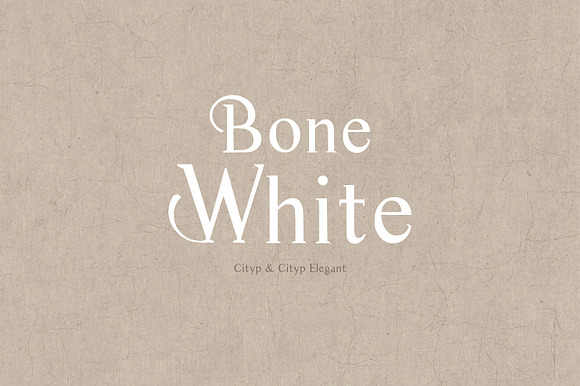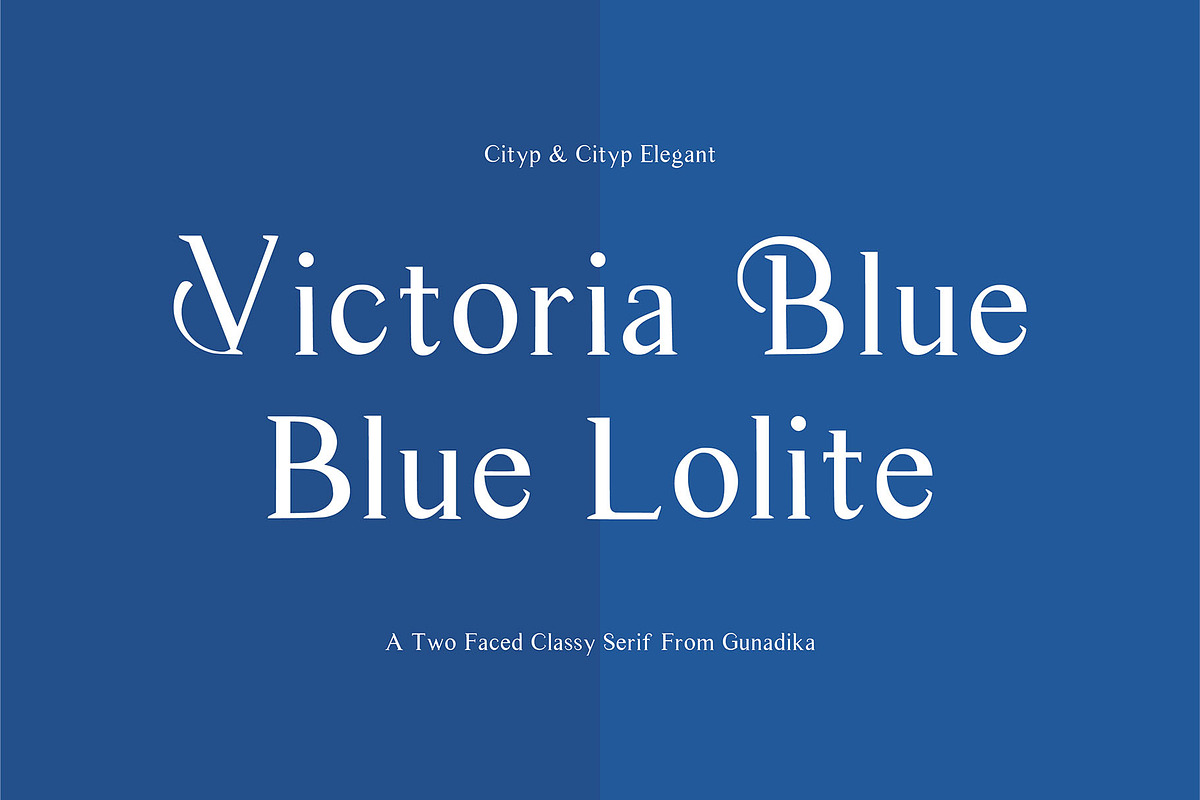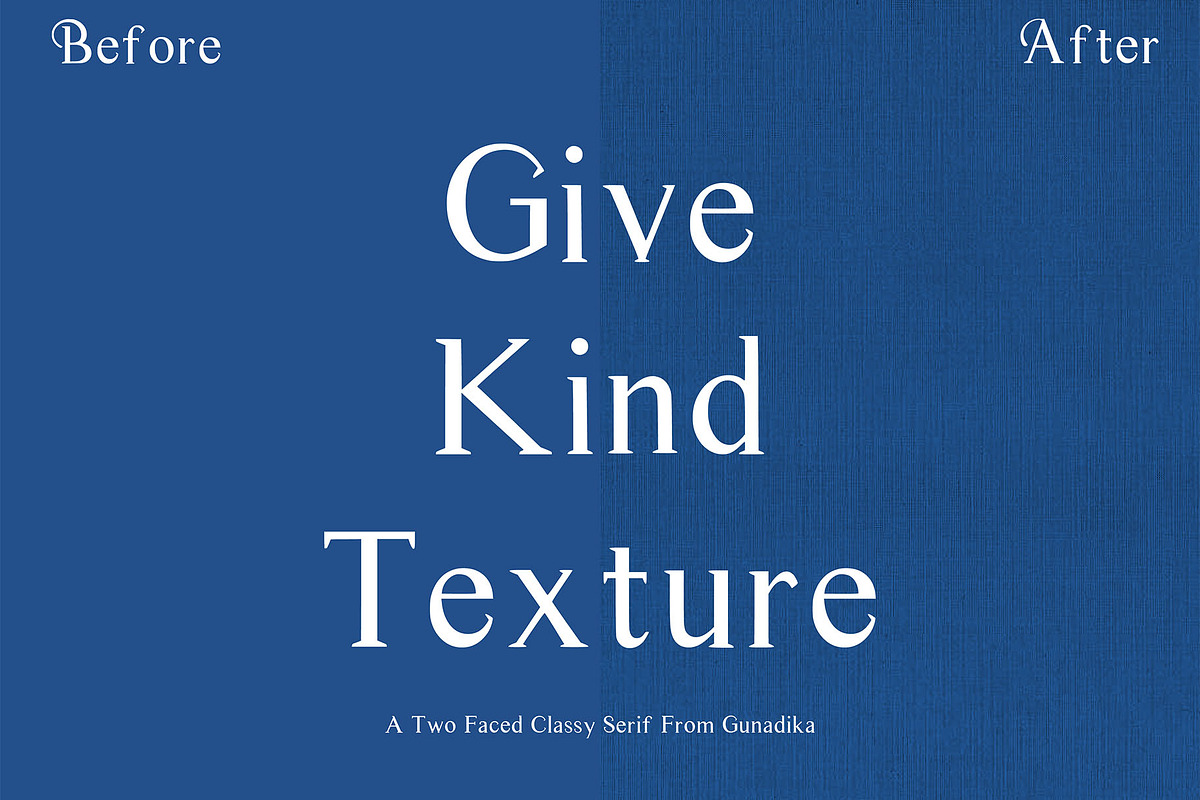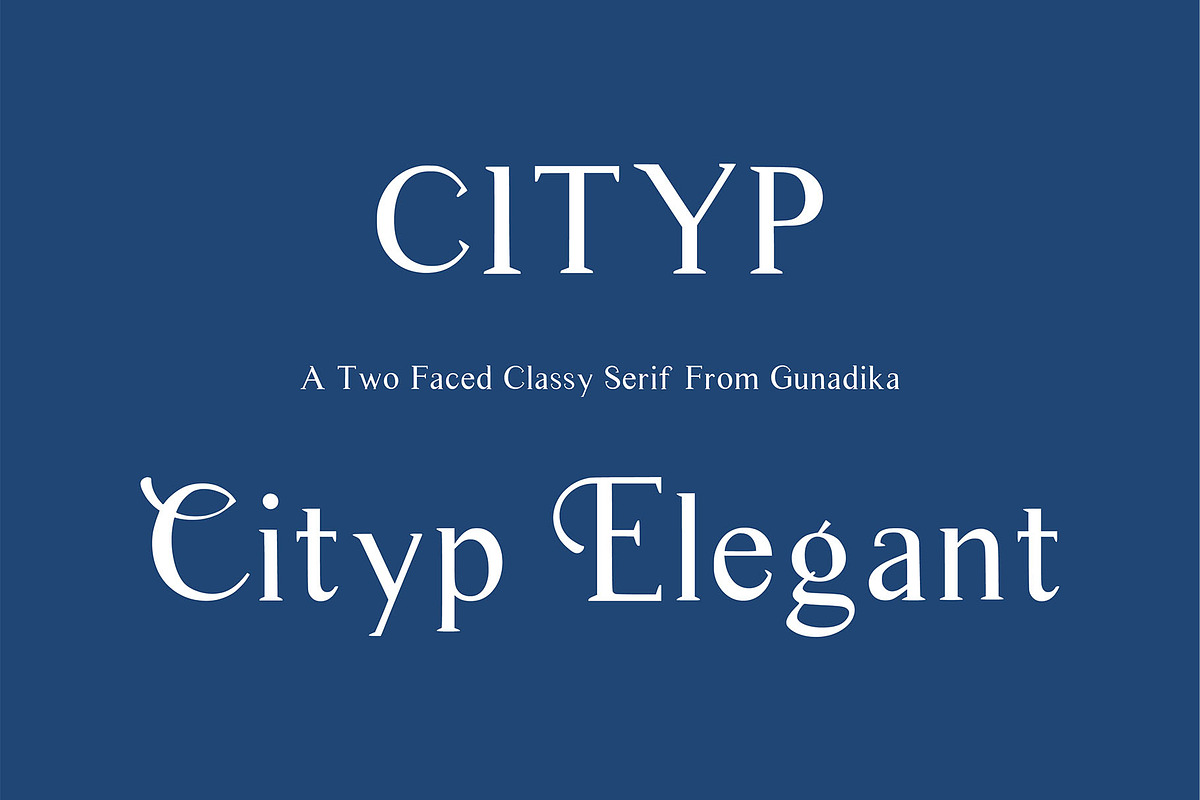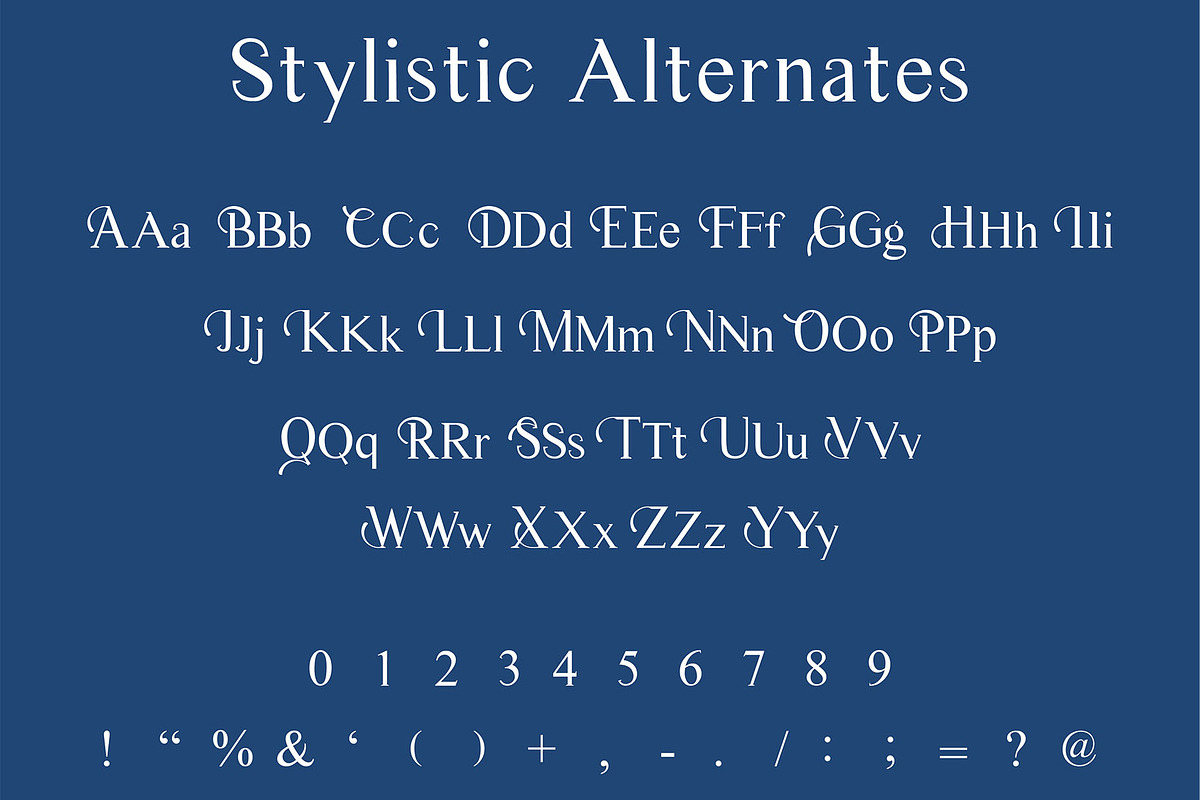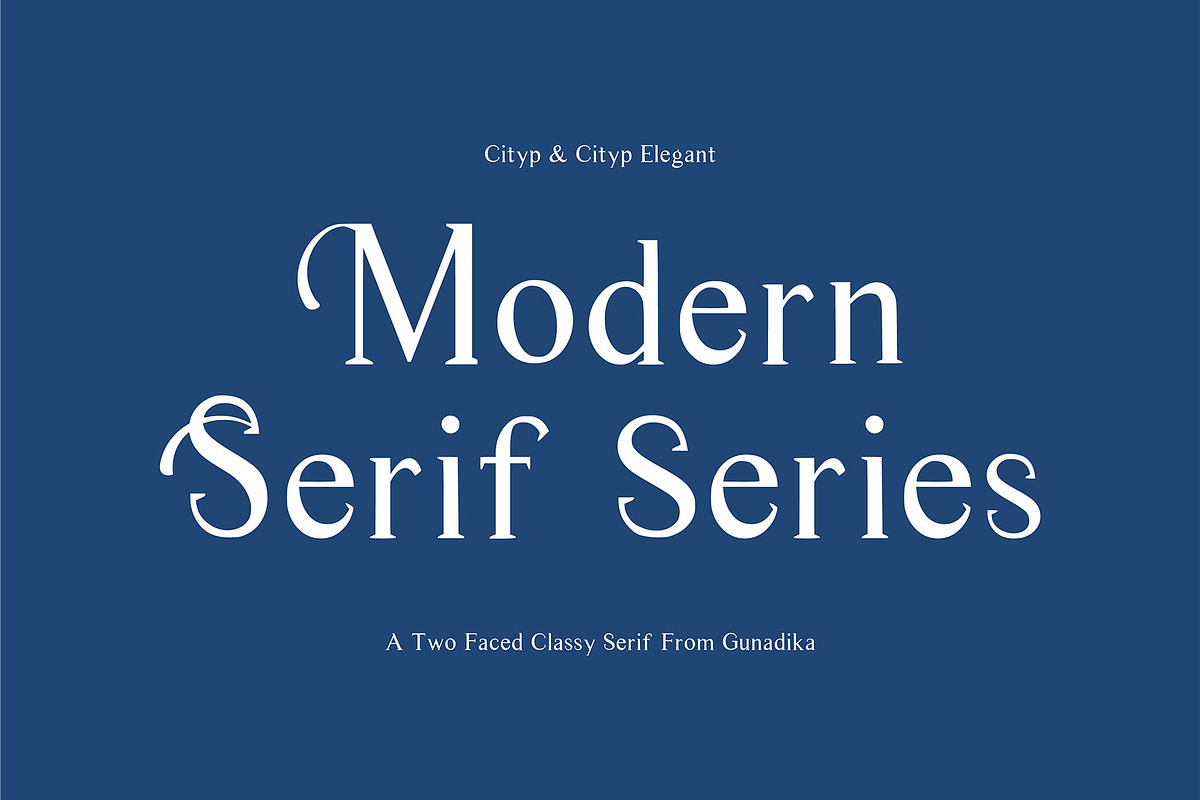
Cityp Serif Font
Why Cityp Serif Font is worth a look
Cityp Serif Font by Gunadika -kadek- fits naturally into Branding, posters, packaging, typography.